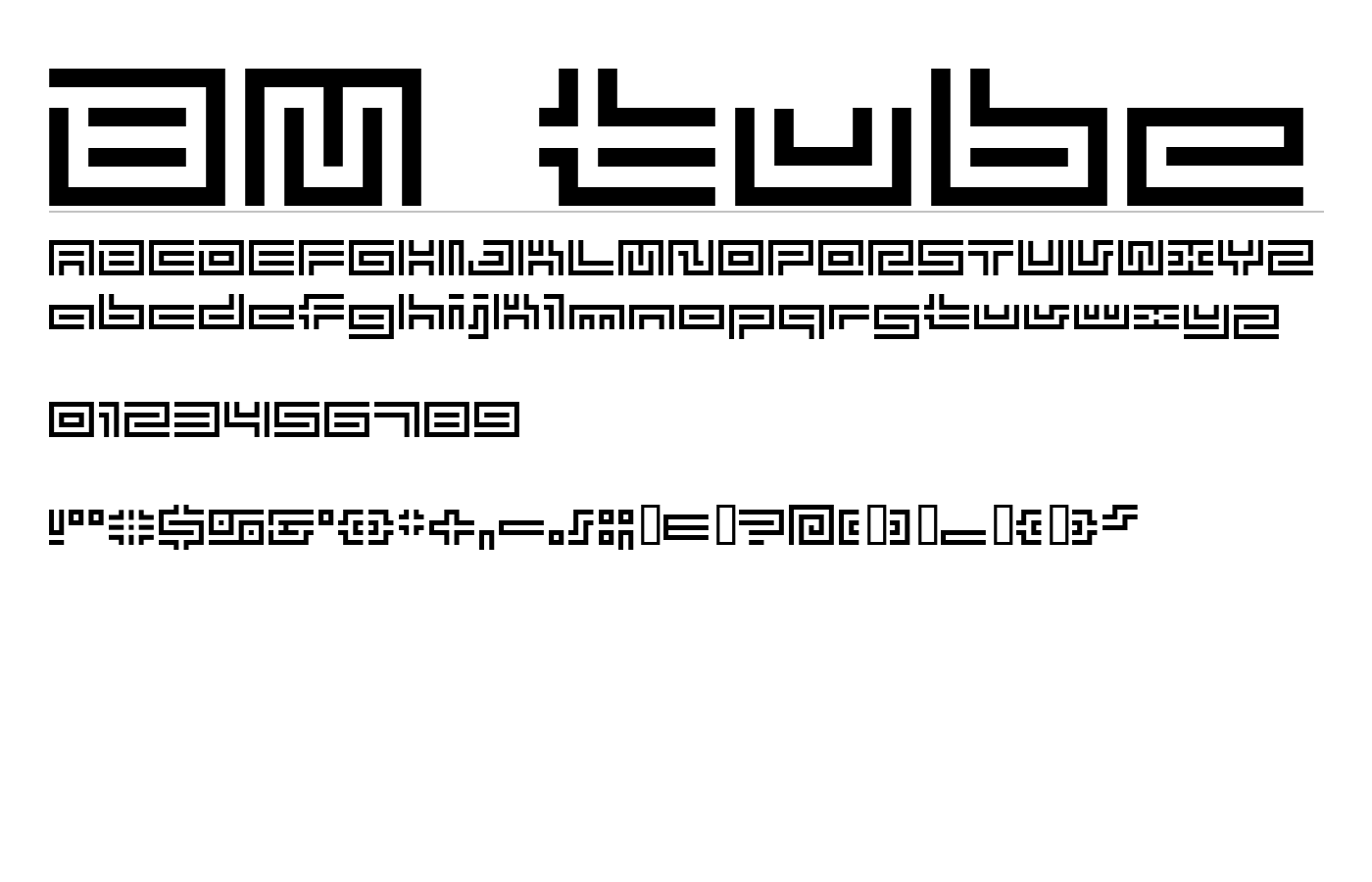
BM Tube is a bold, geometric sans serif font with a distinctly modern, digital feel created by its squared, maze-like letterforms. Its sharp angles and uniform stroke width give it a strong, technical personality that works well for futuristic branding, tech logos, posters, and editorial designs seeking an edgy, contemporary vibe. This font stands out best in large sizes and display settings where its intricate structure can be fully appreciated.
BM tube Font